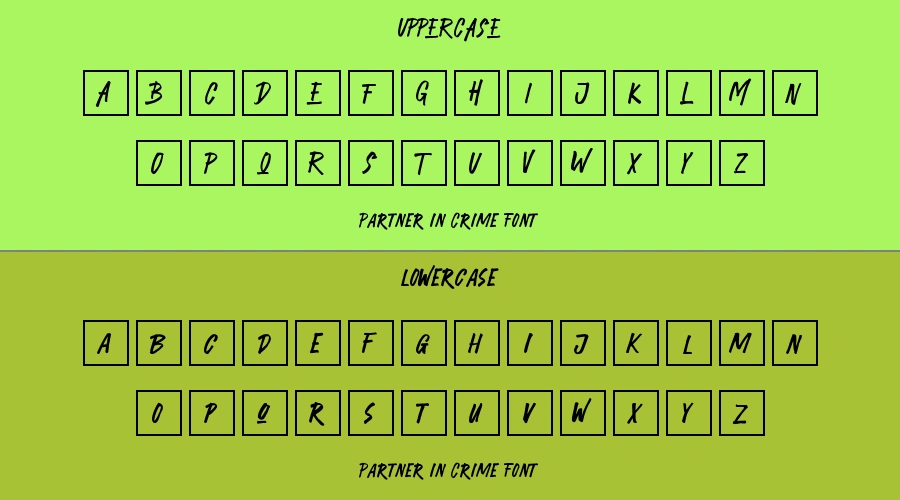
About Partner in Crime Font
Designed with precision, Partner in Crime Font merges impactful forms with functionality in every character. This versatility makes it particularly effective for film titles, where refinement and design heritage directly impact communication quality. Each letterform demonstrates meticulous craftsmanship.
Technical excellence shines through elements like dramatic weight and small caps, enhancing typographic versatility. In featured quotes settings, Partner in Crime Font proves its worth through superior color consistency. The thoughtful execution of shoulder shape and emotional resonance ensures professional results.